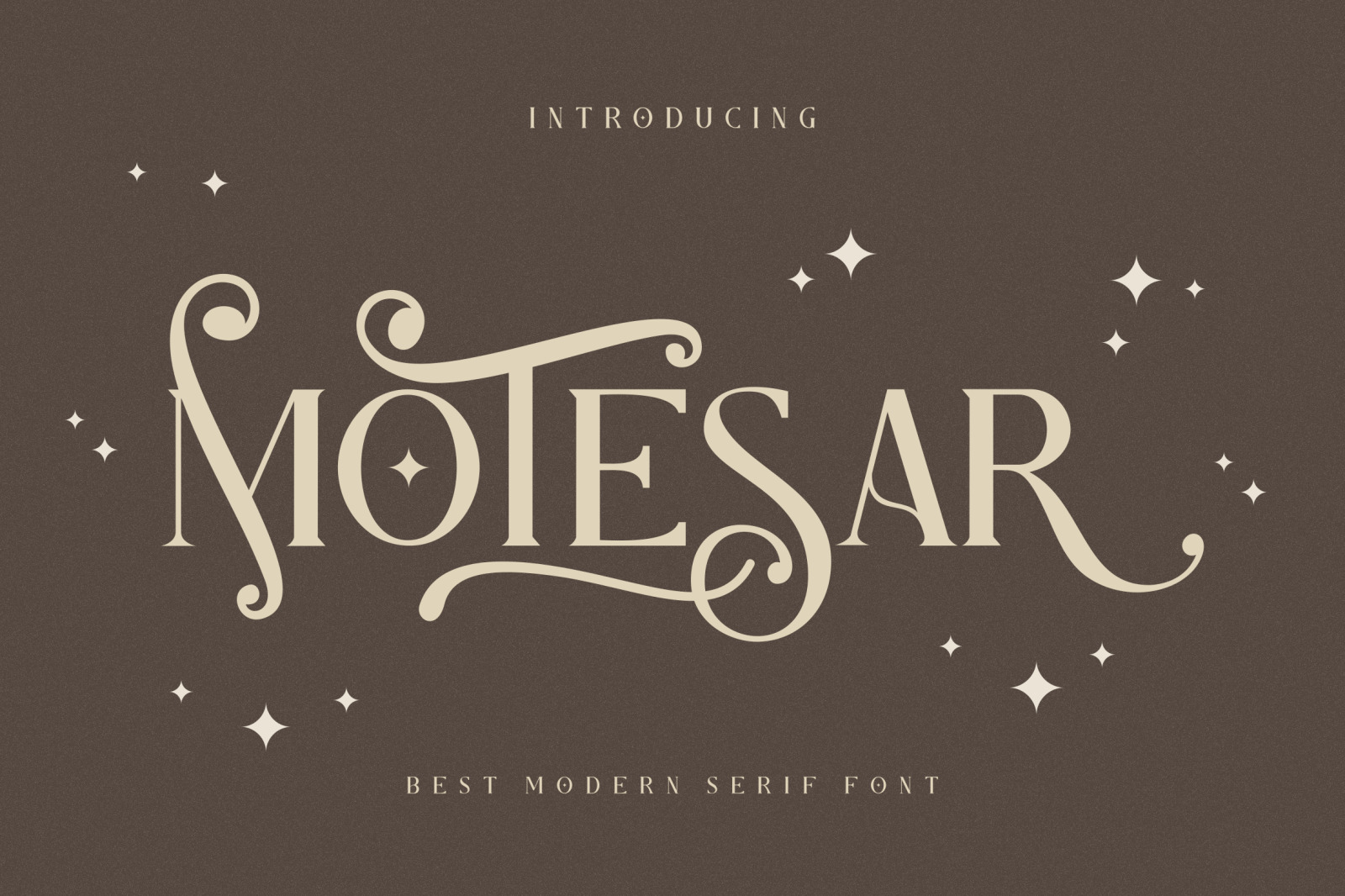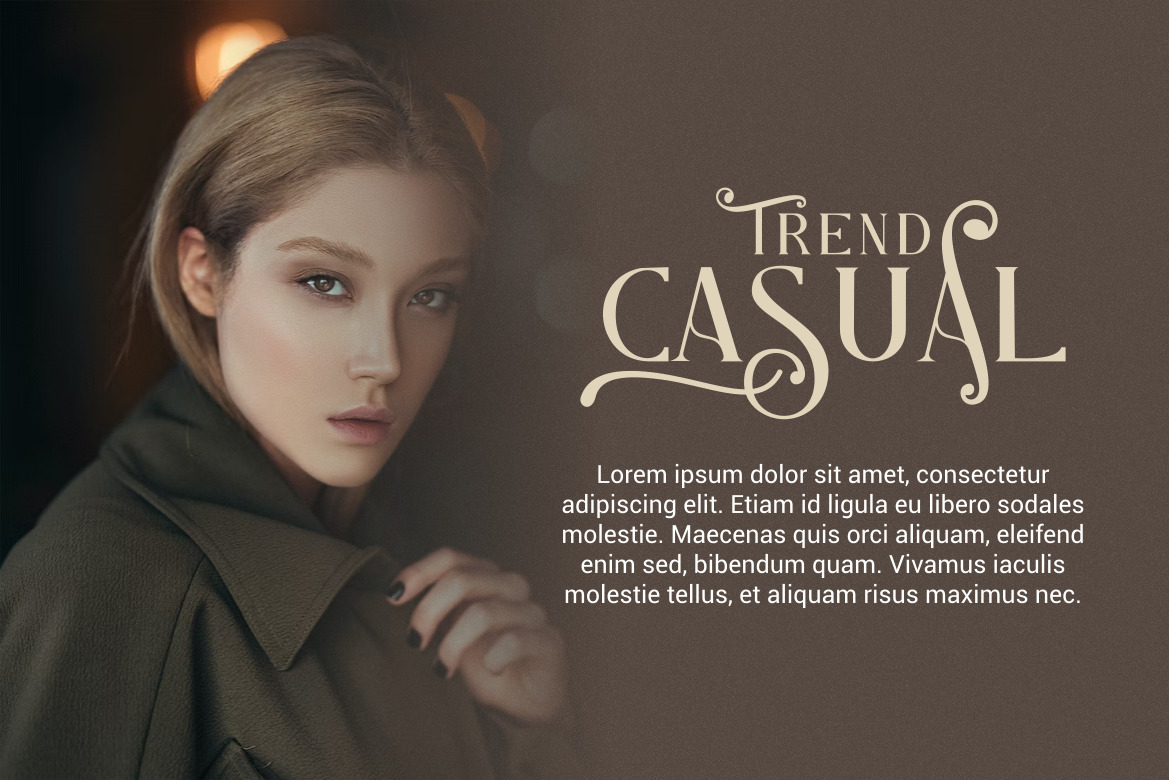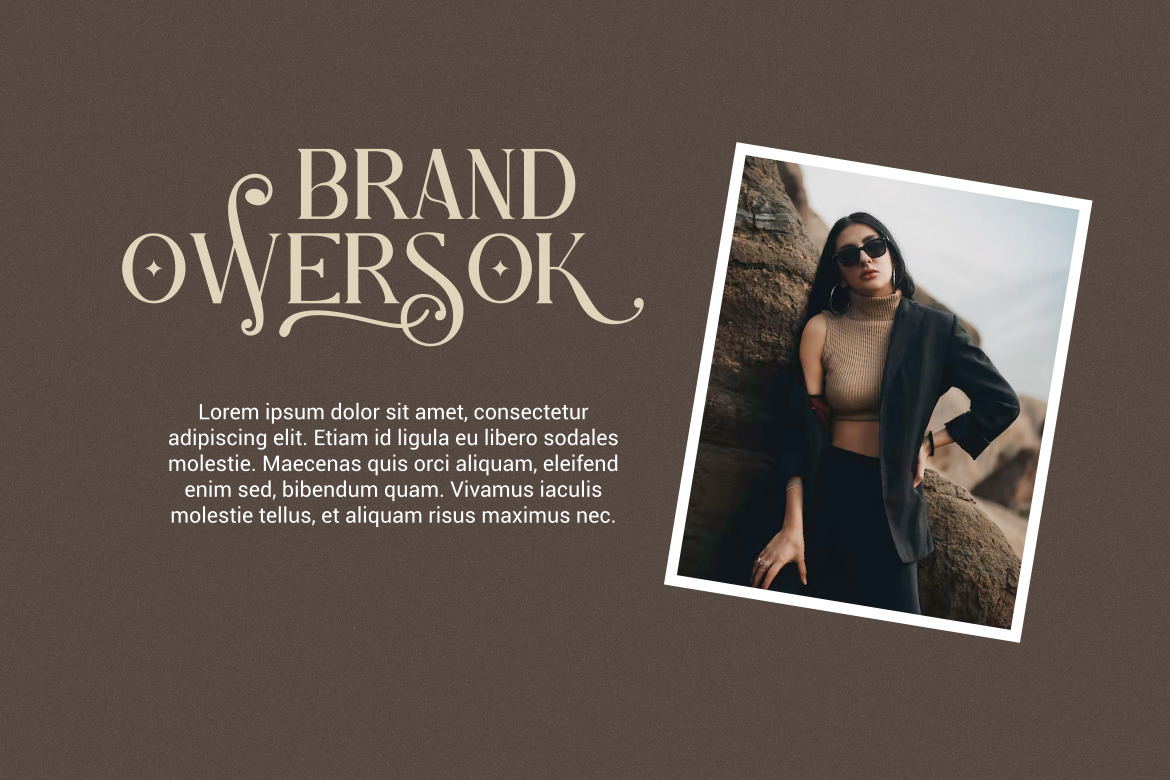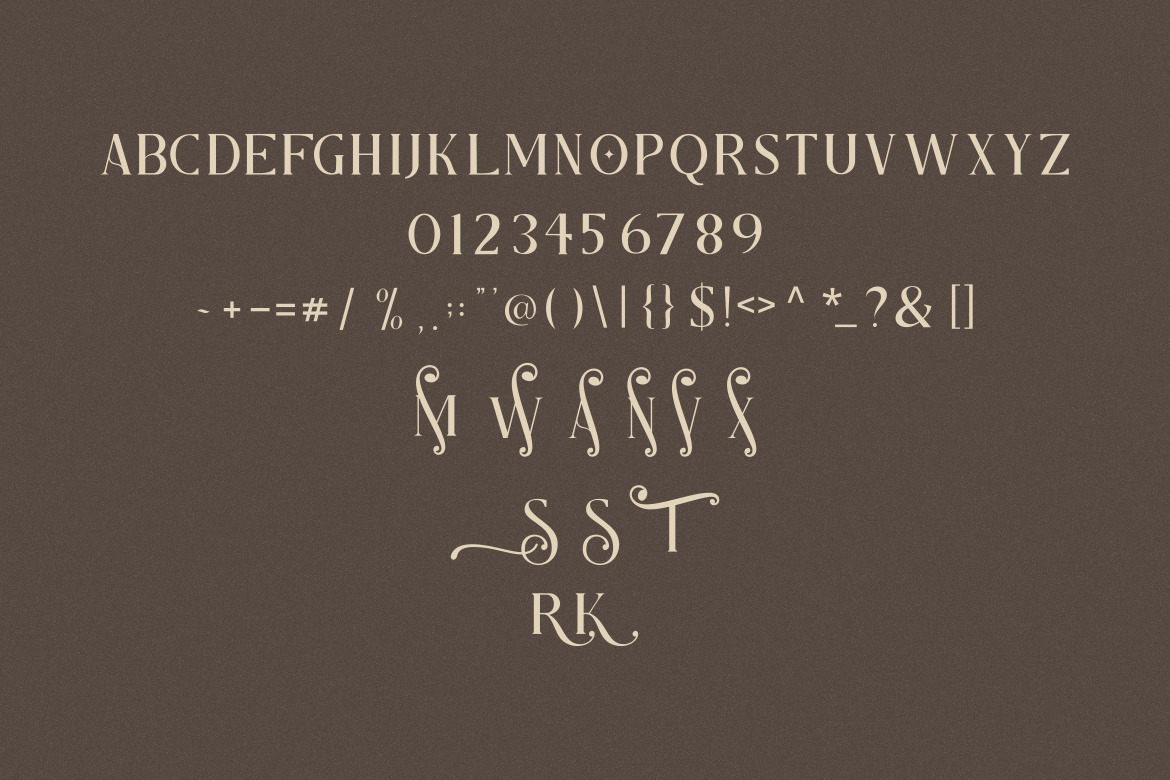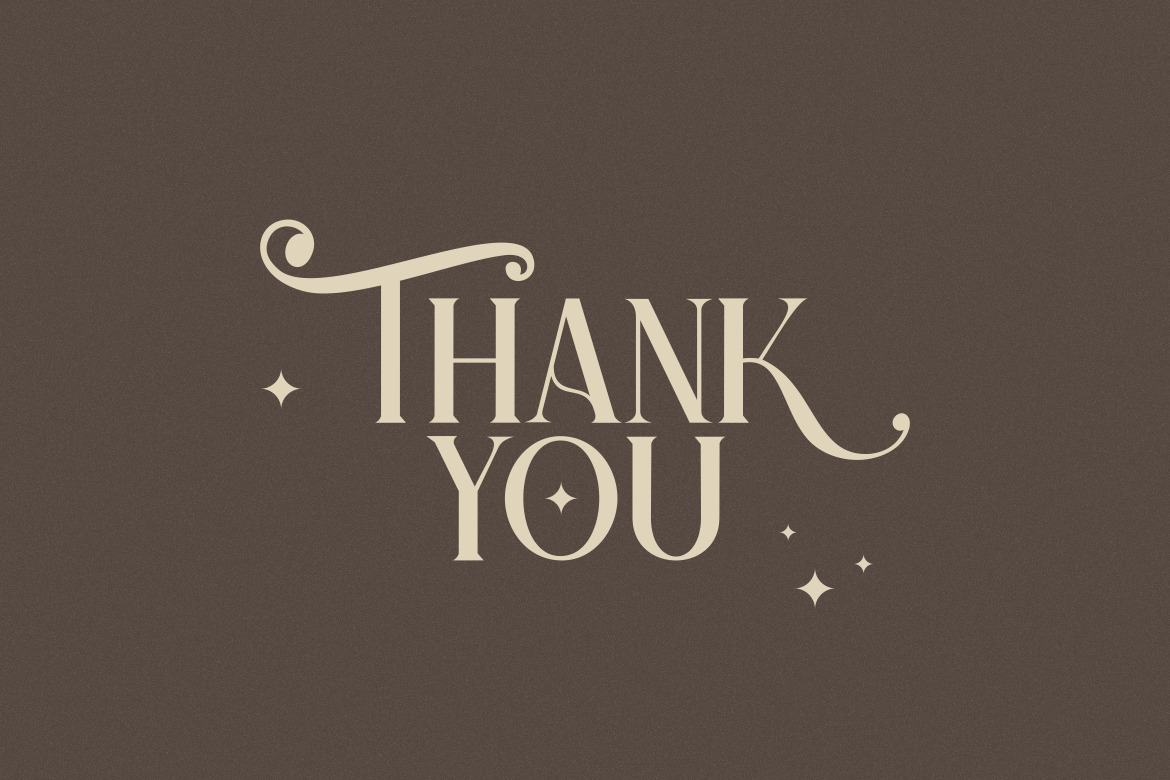
Motesar Font
**Motesar Font** - Modern Fashion Font is a bold and authentic display font. This font is perfect for any branding project such as logos, t-shirt printing, creative products, and more. extraordinary in a variety of contexts.